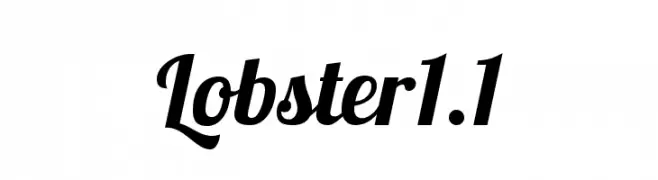
A classic, elegant cursive font with smooth, flowing strokes and moderate contrast.
A bold, cursive font with elegant, flowing lines.
An elegant, cursive script font with a vintage, decorative style.
A dynamic, cursive font with medium contrast and elegant slant.
A dynamic and expressive script font with fluid, cursive letterforms.
An elegant, flowing script font with smooth cursive strokes.
An elegant script font with flowing, cursive letterforms and decorative elements.
A classic, elegant cursive script with flowing, connected strokes.
An elegant, italic script font with flowing, cursive characters.